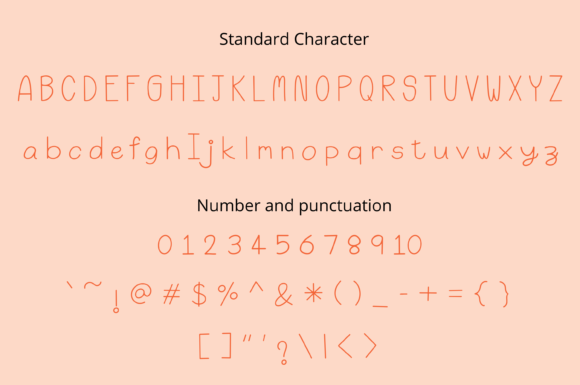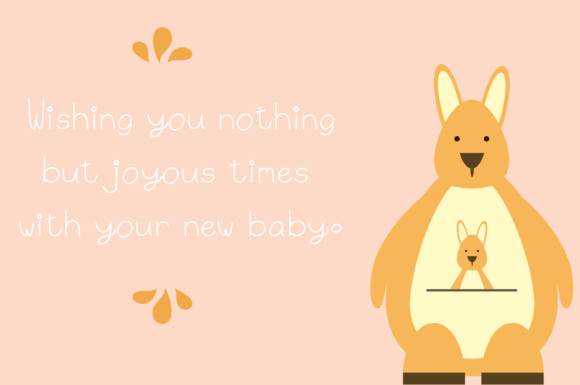
Simply Brand Font
db-ku.com - Script & Handwritten -- Simply Brand is a whimsical, tall and slim handwritten font. It can easily be matched to an incredibly large set of projects, so add it to your creative ideas and notice how it makes them stand out!